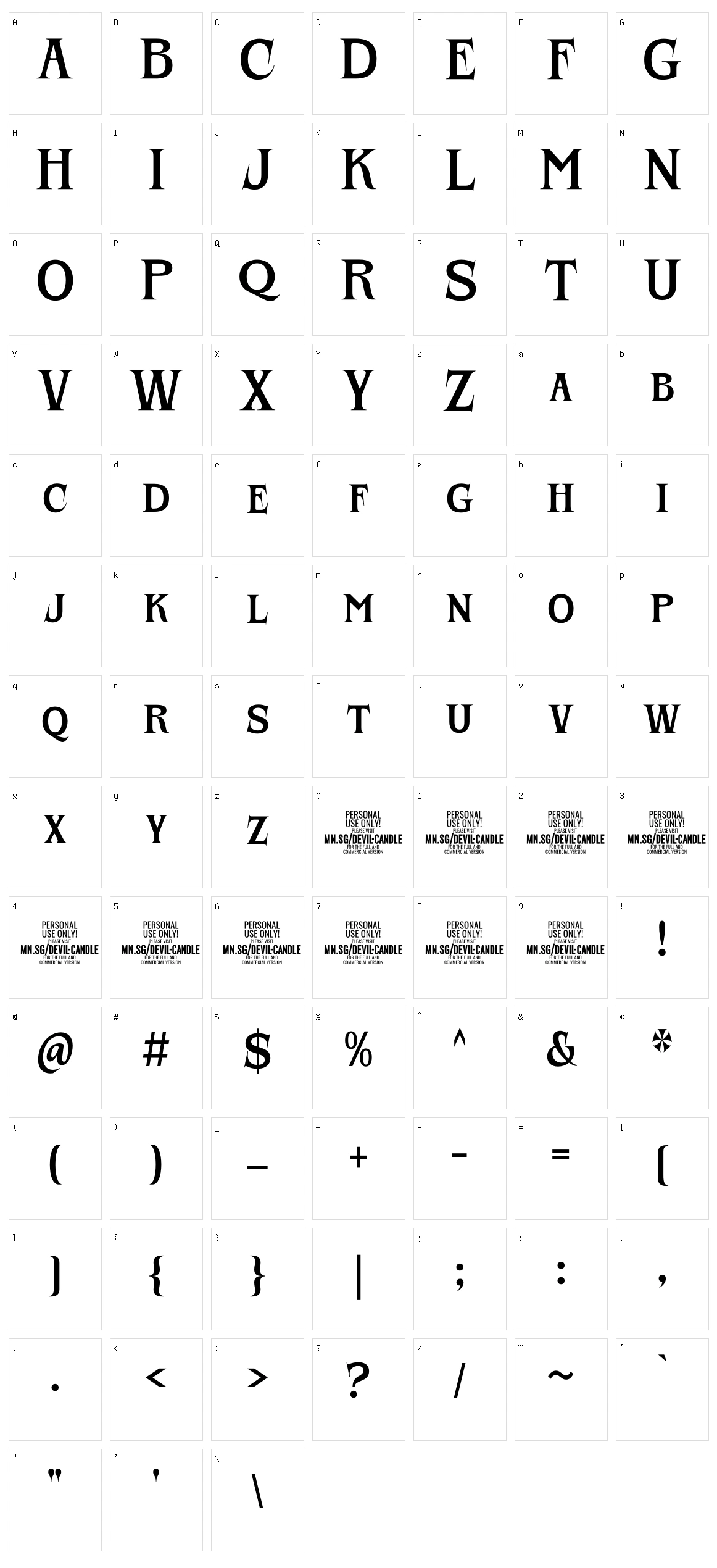
Devil Candle evokes a symphony of sinister whispers, a reflection of the murky depths of hell.
Its refined serif characters, in narrow to wide stances, echo the undulating flames of a devil's candle, flickering ominously in the abyss.
Ideal for the bone-chilling narratives of horror movies, this typeface encompasses the raw essence of Halloween and satanic lore, effectively encapsulating the pulse of terror that courses through the veins of the enchanted and the damned.
The font is built with advanced OpenType functionality and has a guaranteed top-notch quality, containing stylistic and contextual alternates, ligatures, and more features; all to give you full control and customizability. It has extensive lingual support, covering all Latin-based languages, from Northern Europe to South Africa, from America to South-East Asia. It contains all characters and symbols you'll ever need, including all punctuation and numbers.
Mans Greback, an artisan of letters, adds another gem to his collection with Devil Candle. This typeface reaffirms Greback's knack for breathing life into characters that transcend mere alphabets, crafting narratives that resonate with aficionados of the genre.